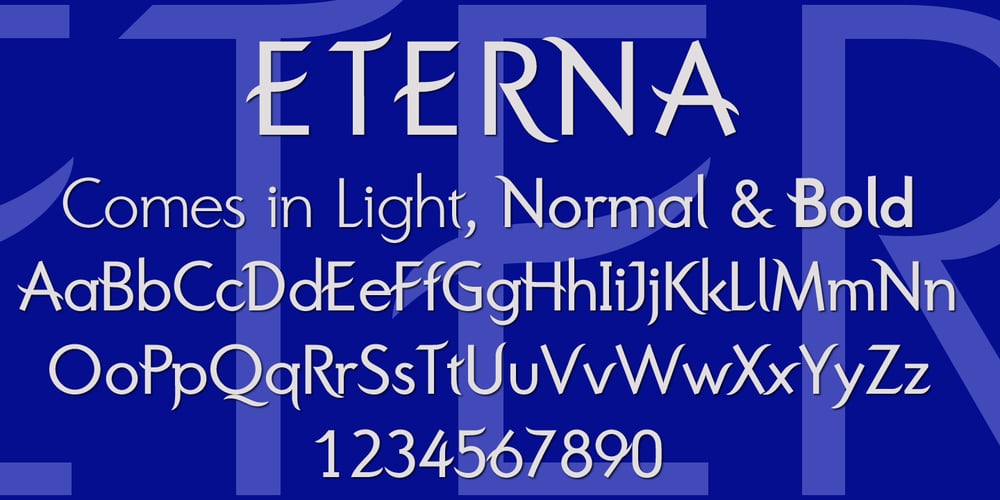
Eterna
Eterna font
Eterna Font Family was designed by Gert Wiescher and published by Wiescher Design. Eterna contains 3 styles and family package options. Eterna is a very beautiful font with diverse uses. In small sizes it acts like it was a Sans typeface, the swings and points tend to be overlooked. In bigger sizes it works as a very elegant embellished typeface, showing off the rich forms. The capital letters can also successfully be used as Initials. Your designer of very versatile fonts Gert Wiescher